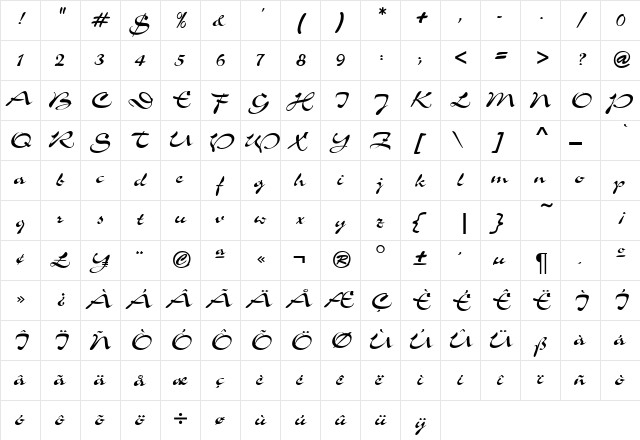
ShowerDB Normal
Design Context for ShowerDB Typeface
ShowerDB is a composed and adaptable typeface that performs quietly and consistently across a wide range of design contexts.